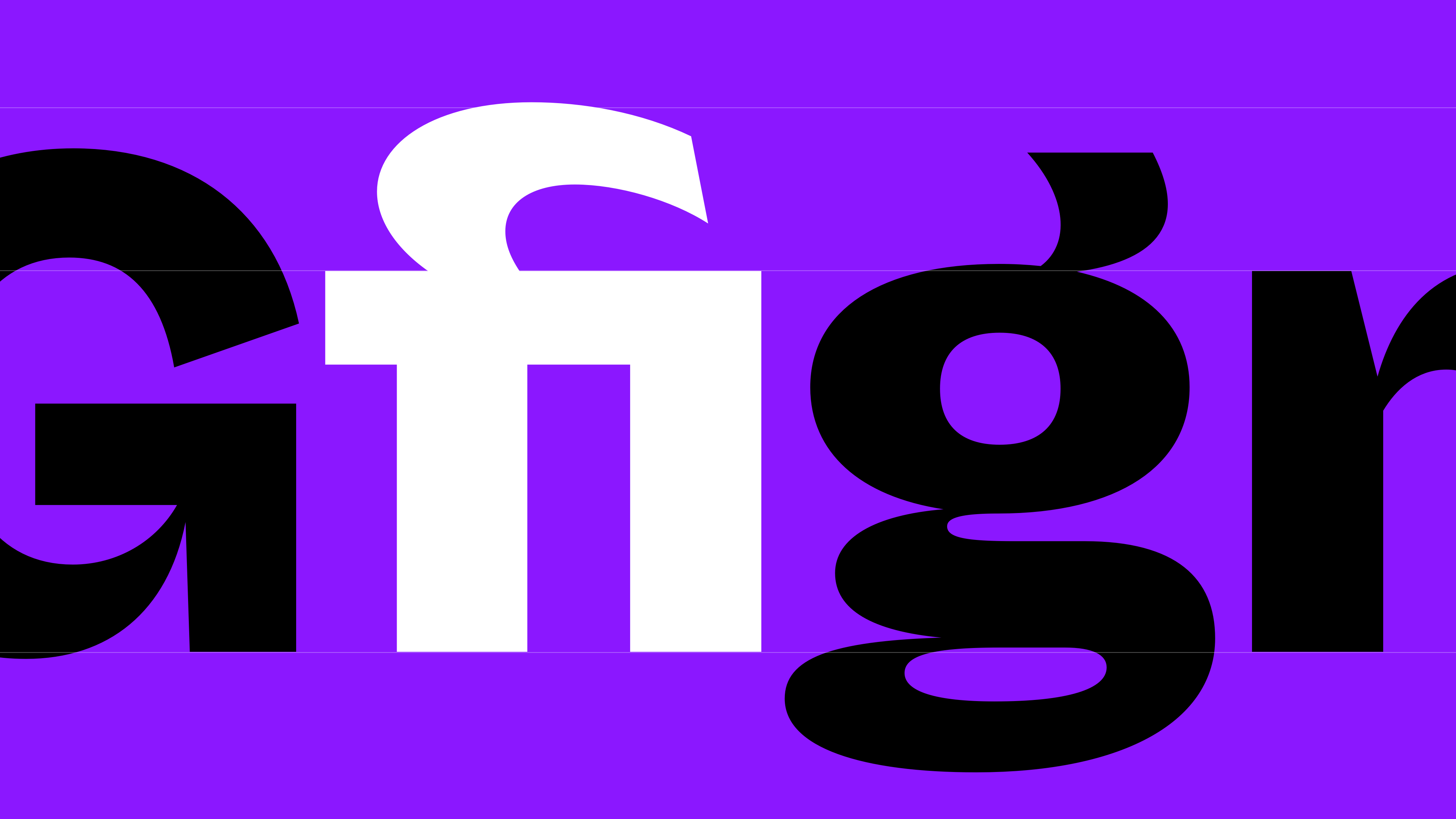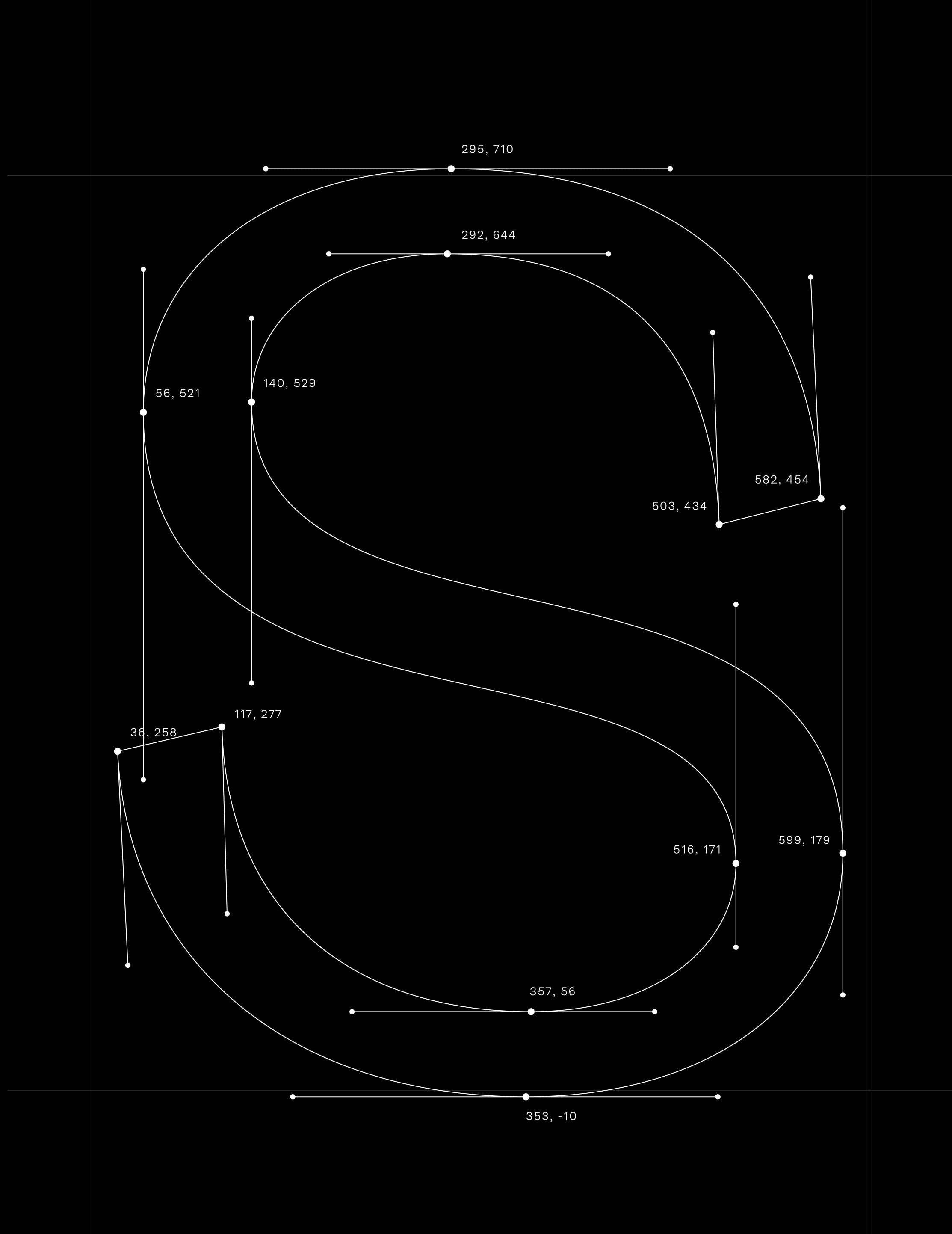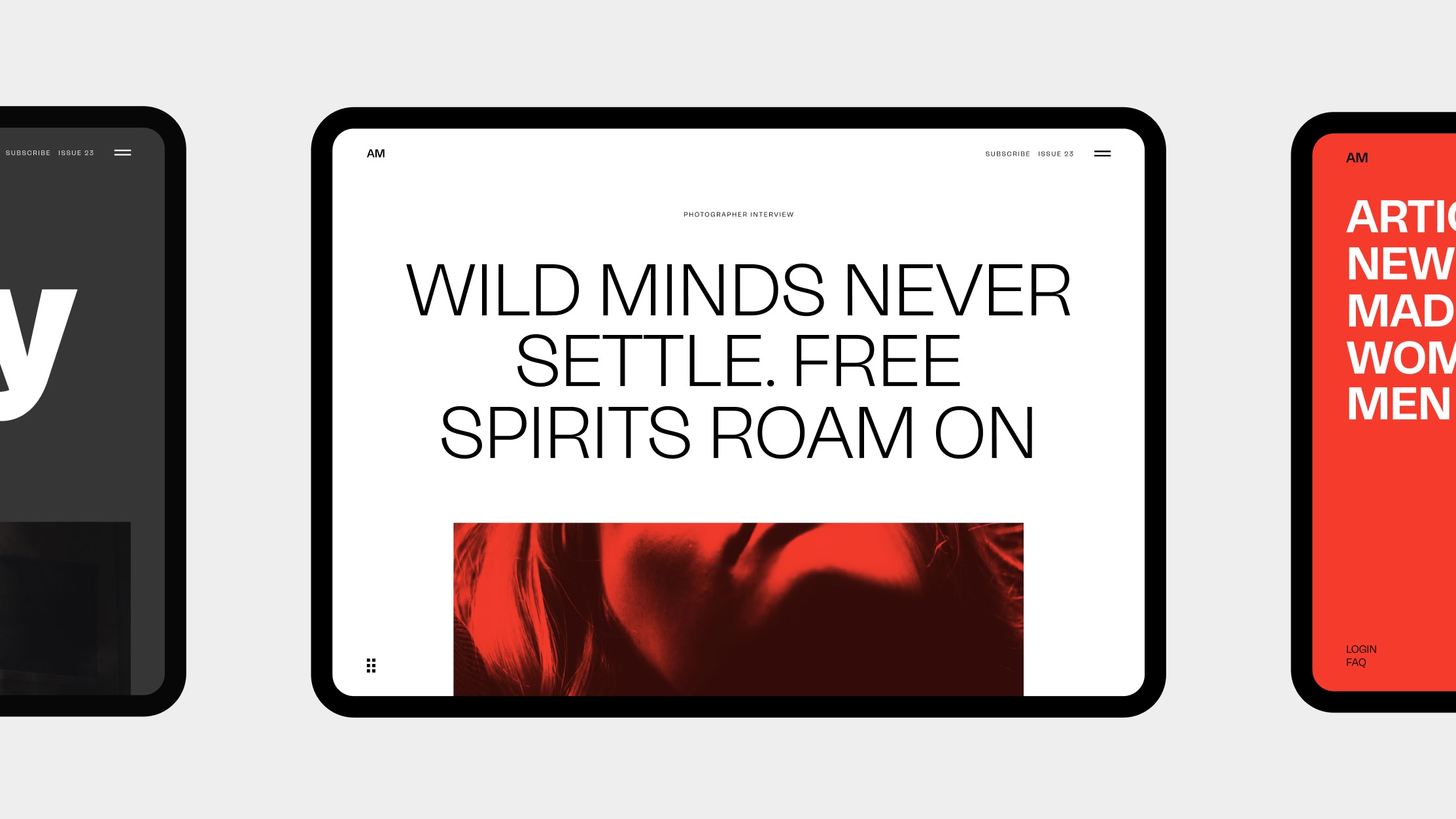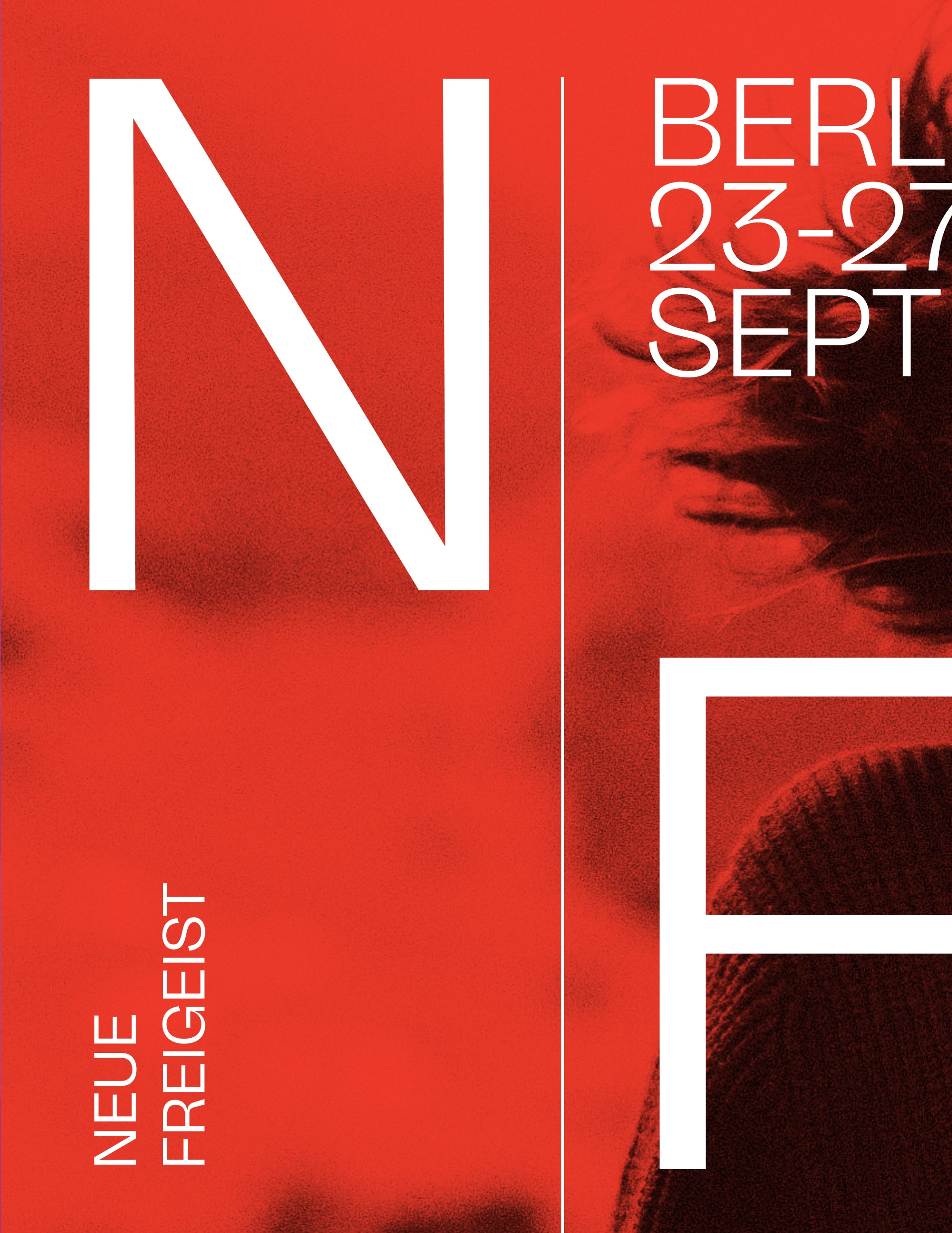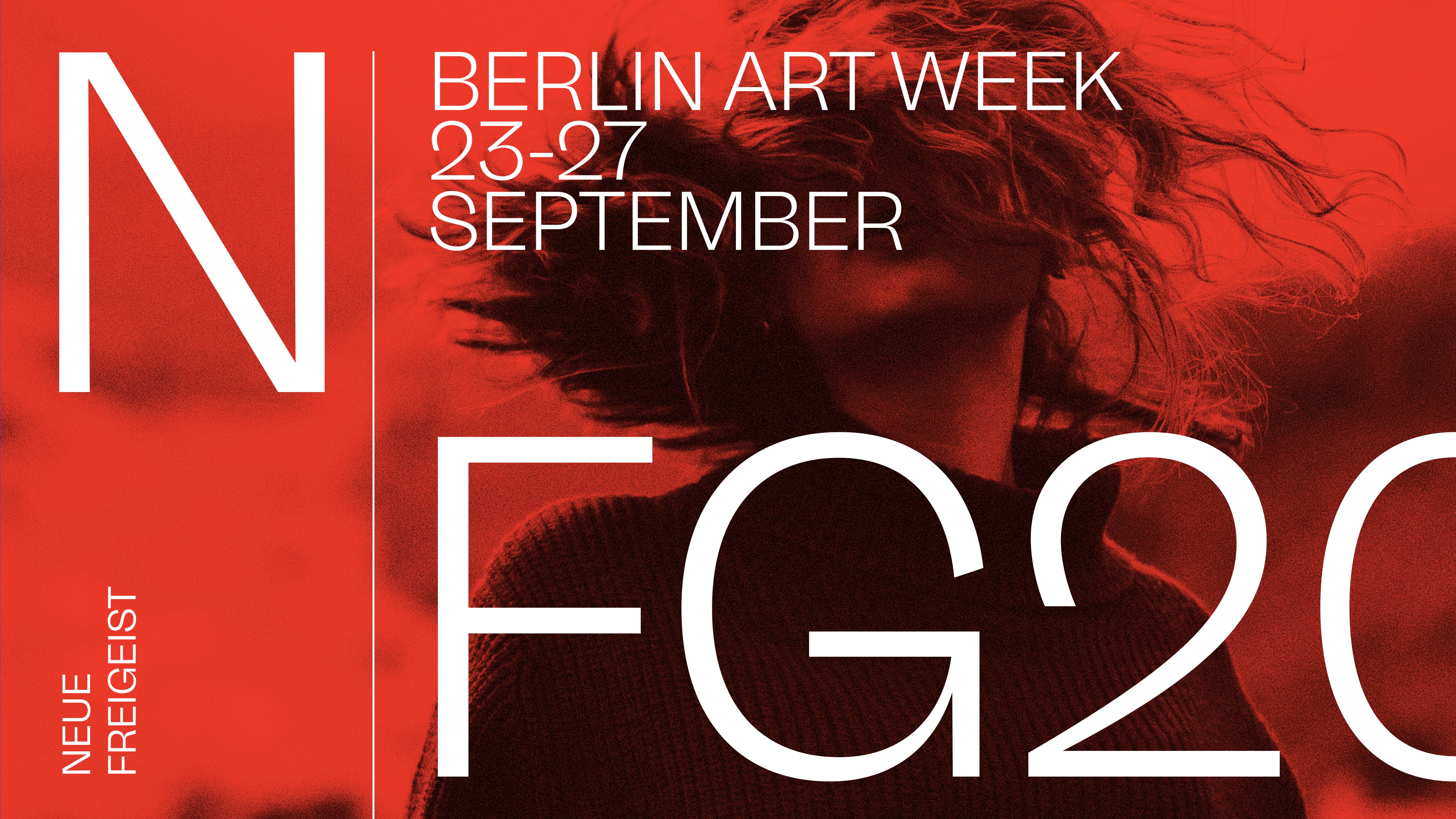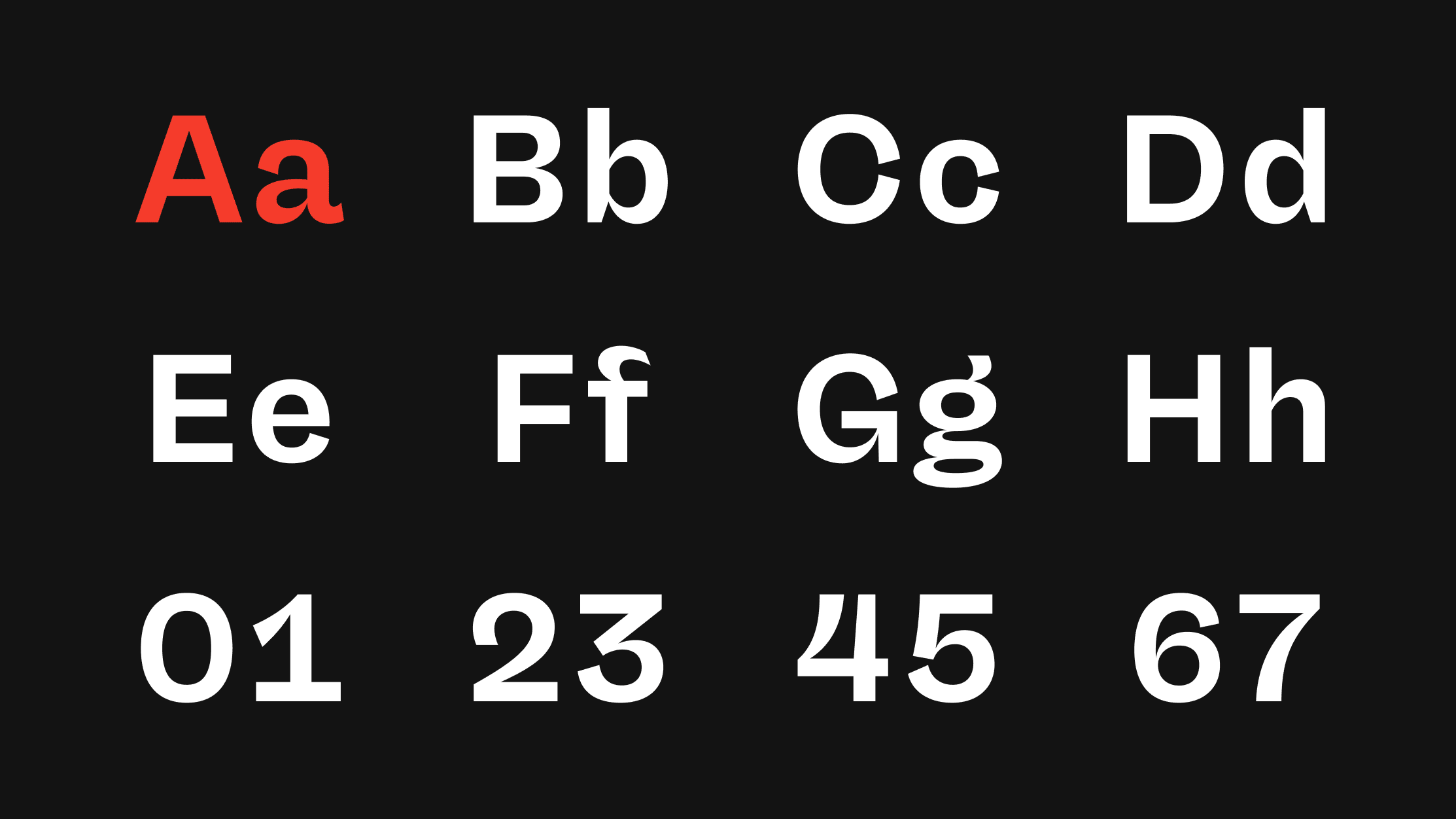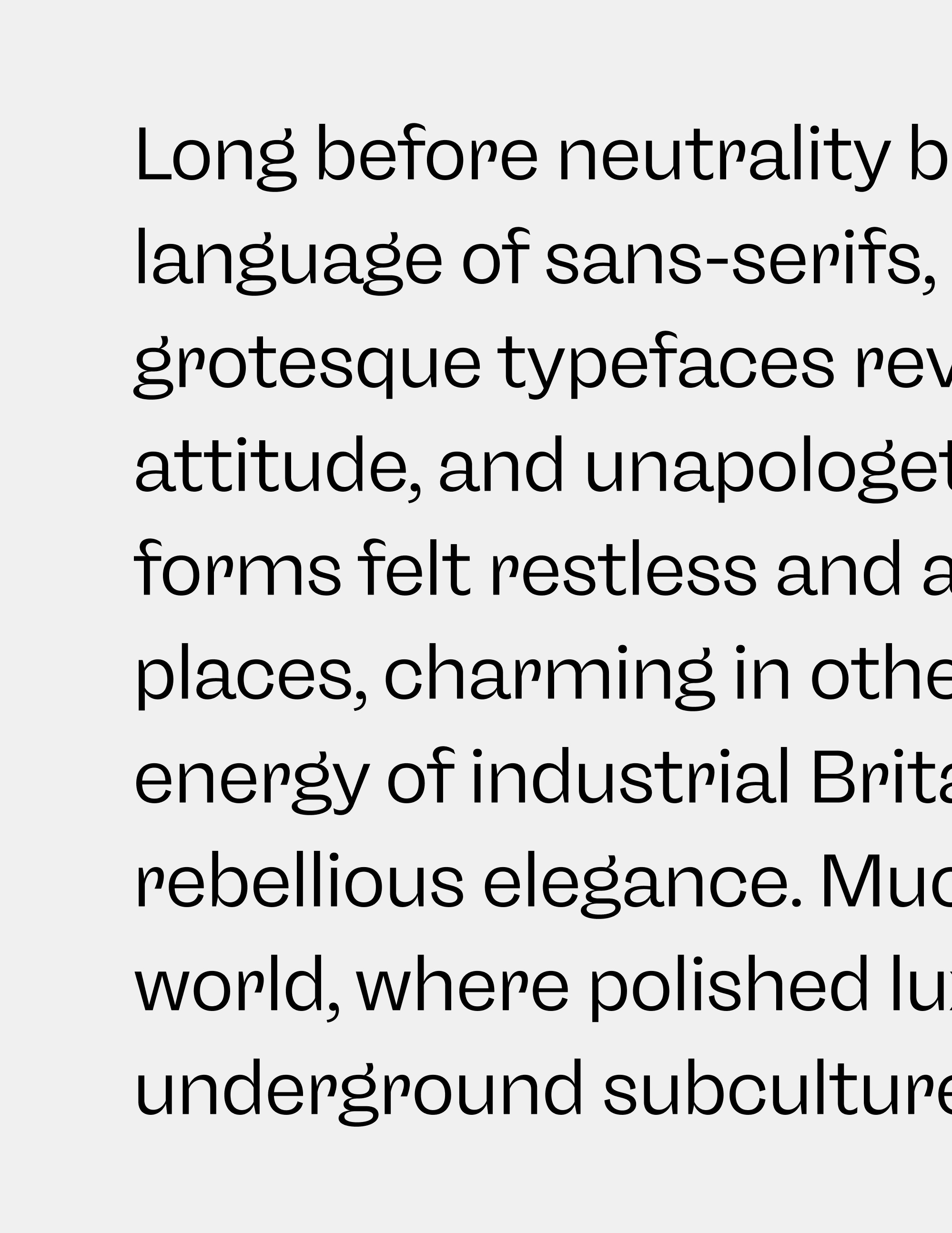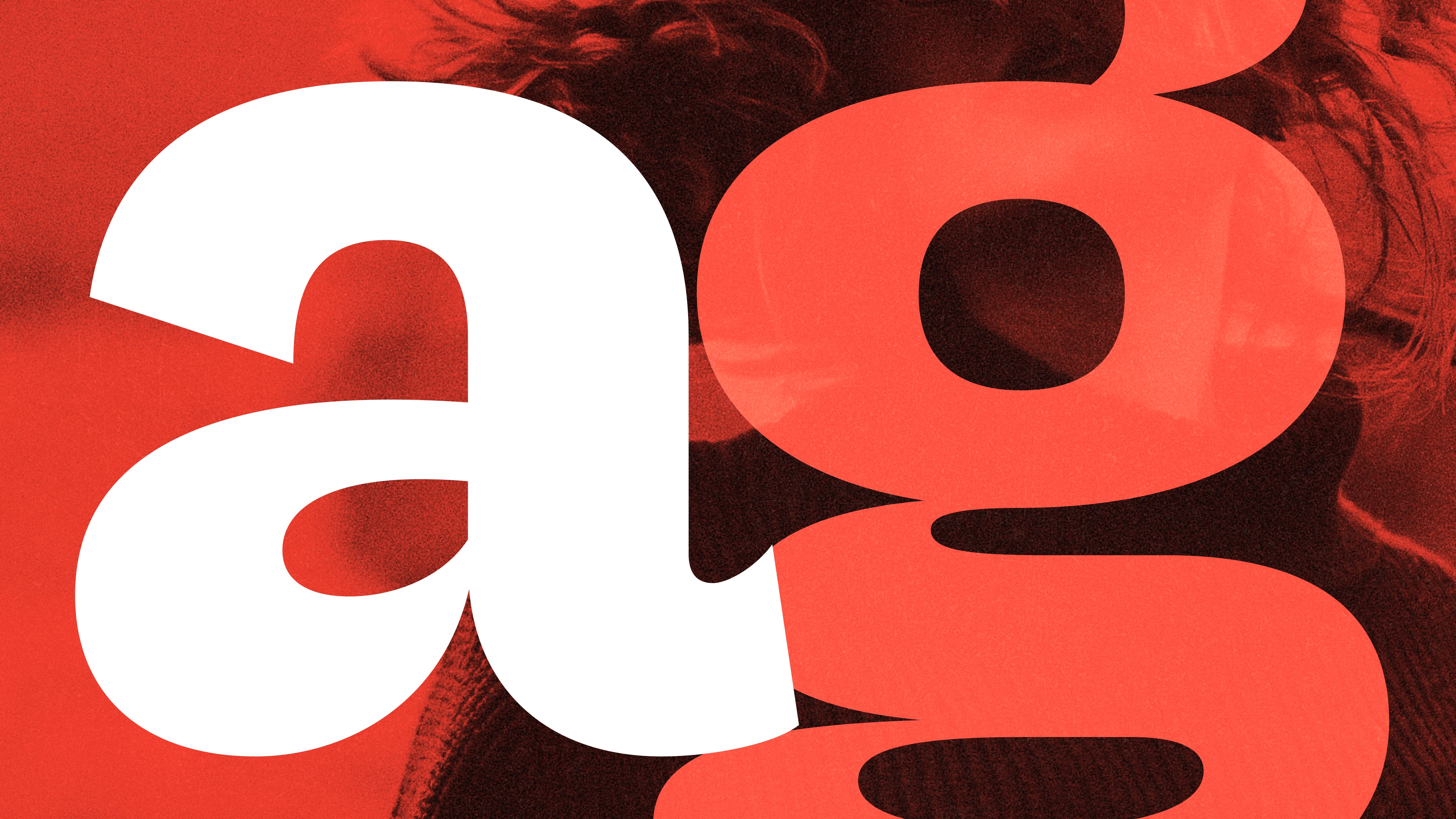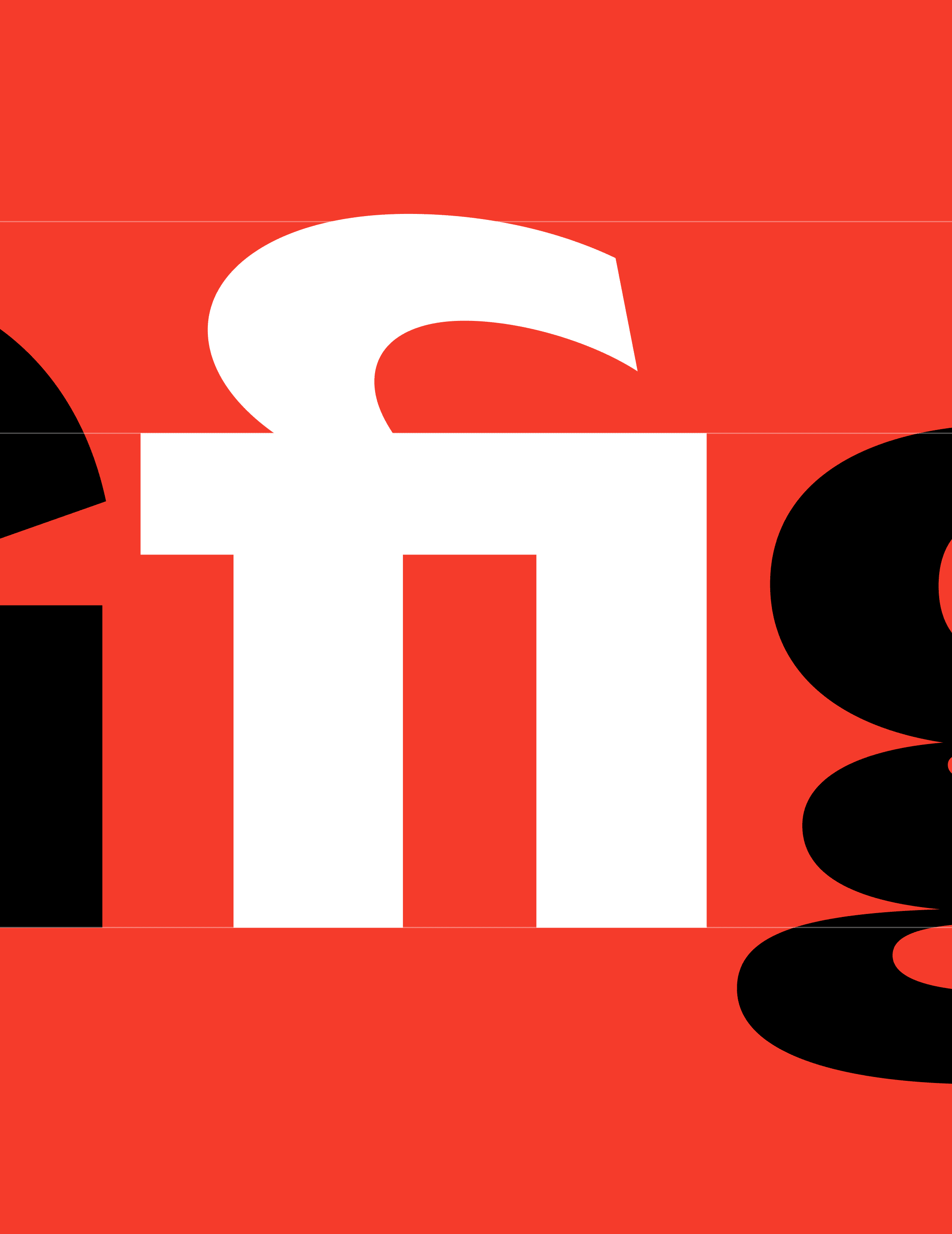
Neue Freigeist reinterprets the untamed spirit of early Grotesk typefaces for the present day. Balancing historical references with modern precision, the family combines raw character, youthful energy, and versatility.